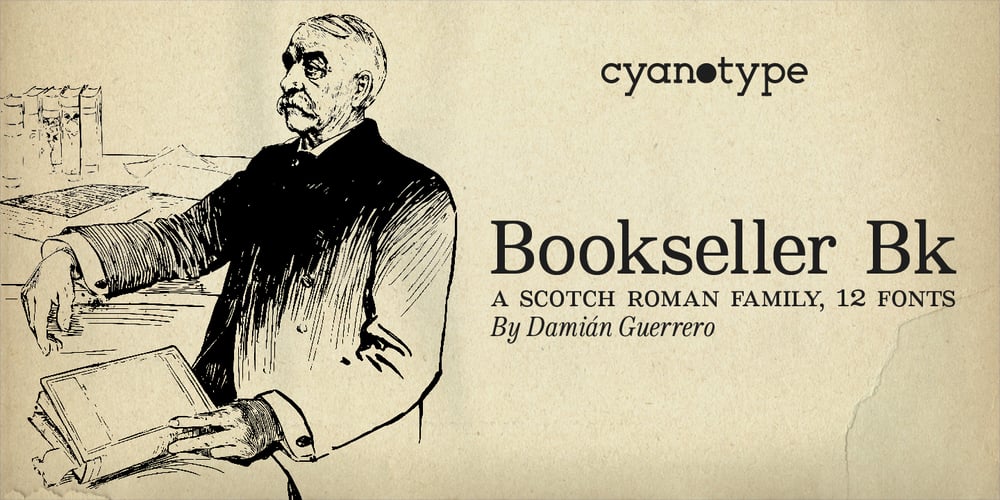
Bookseller Bk
Bookseller Bk font
Bookseller Bk Font Family was designed by Damián Guerrero and published by Cyanotype. Bookseller Bk contains 12 styles and family package options. Bookseller Bk is a typeface designed for books and legible text at a small sizes, with an old book feeling. This typeface is the reinterpretation of a sample found in a French book, published between 1882 and 1893 and its author —Ernest Michel— lived between 1837 and 1896. This sample has influence from Didot, Scotch Roman and Clarendon (typefaces which were in use at that time). This reinterpretation expands the basic set for the contemporary era.Bookseller Bk includes small caps, old style figures, lining figures, fractions and basic Cyrillic alphabet. Everything in 3 different optical widths. You can save some lines with Reduced weight or fill some lines with Ample weight. All of them with italics, bold and bold italics. Bookseller Bk is also available in Caption size. 12 fonts for legibility at smaller sizes. Subhead & Title sizes are now in development.Finally this typeface was the result of the course Digital Reinterpretation of Classic Typography by Oscar Guerrero Cañizares at Domestika.Do you require additional glyphs? Please contact me to consider your request in order to expand Bookseller in further updates.